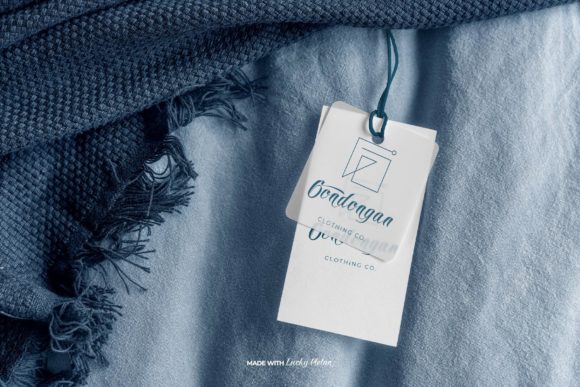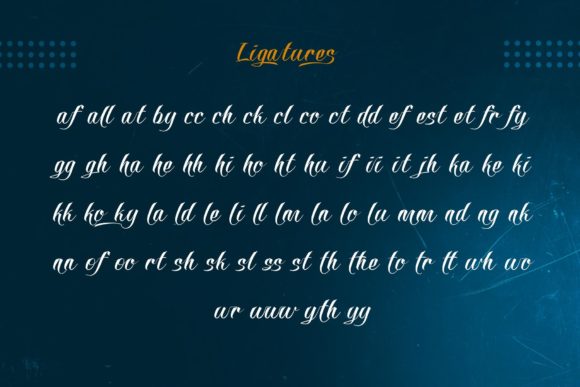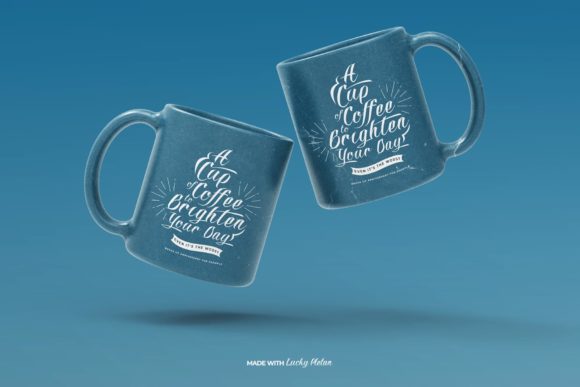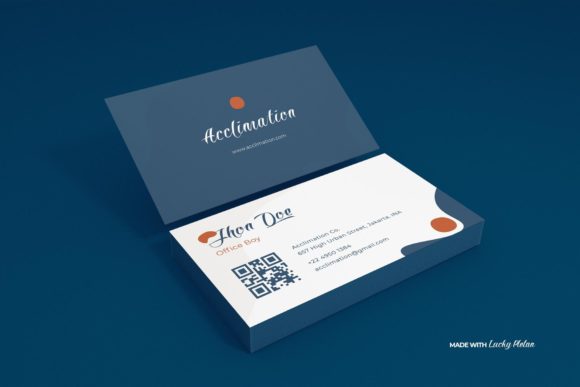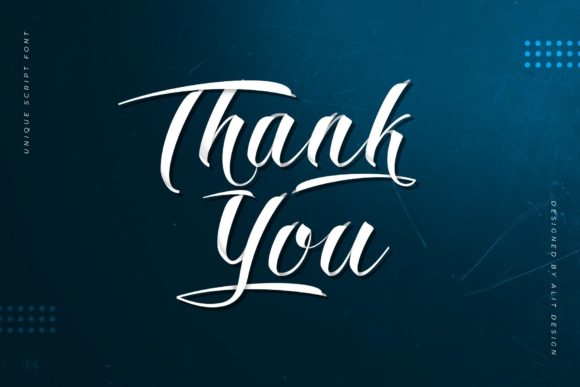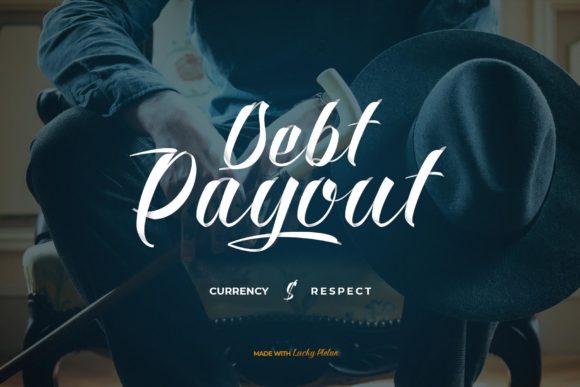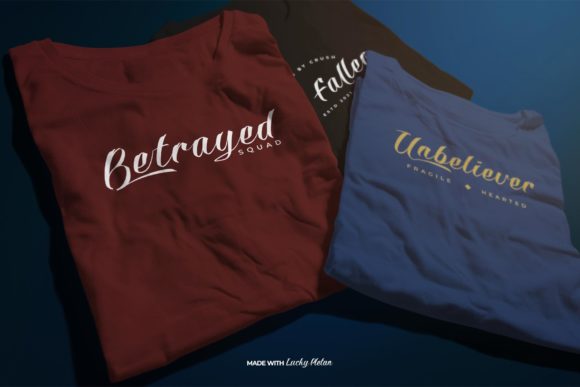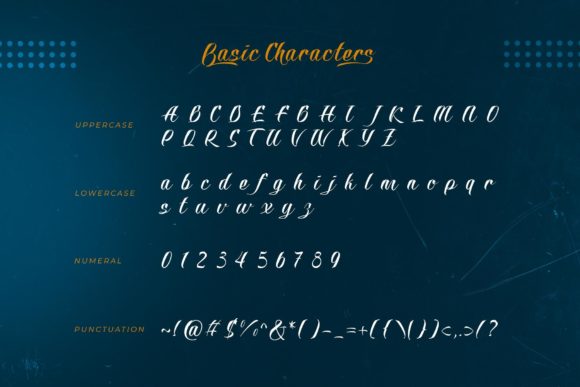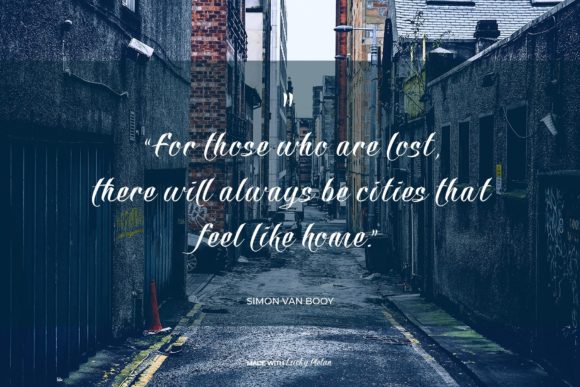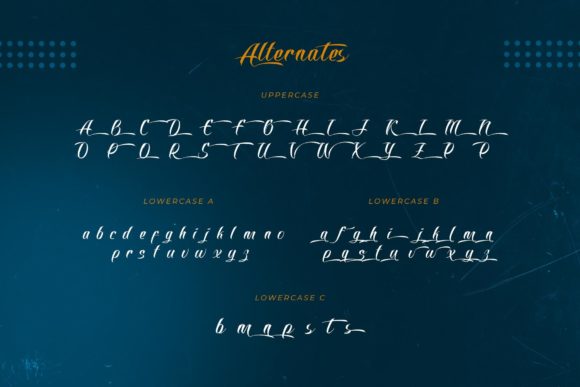
Lucky Pletan Font
Lucky Pletan is a lovely script font. It is PUA encoded which means you can access all glyphs and swashes with ease! Fall for its ravishing style and use it to create gorgeous designs.